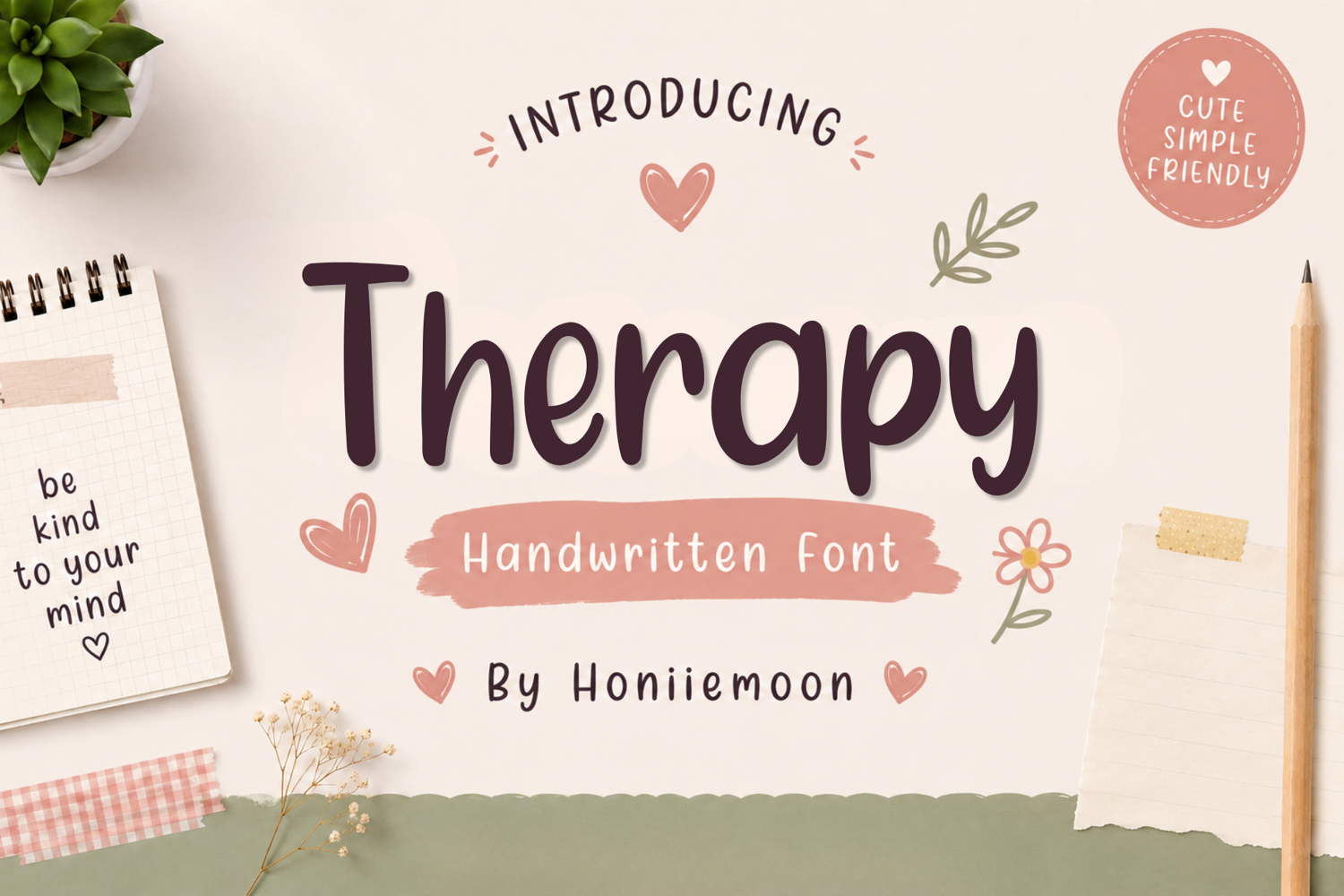
Therapy is a charming handwritten font inspired by everyday journaling and note-taking. Perfect for planners, classroom projects, stickers, quotes, branding, and digital creations.
✨ Easy to Read
✨ Natural Handwriting Style
✨ Great for Journals & Planners